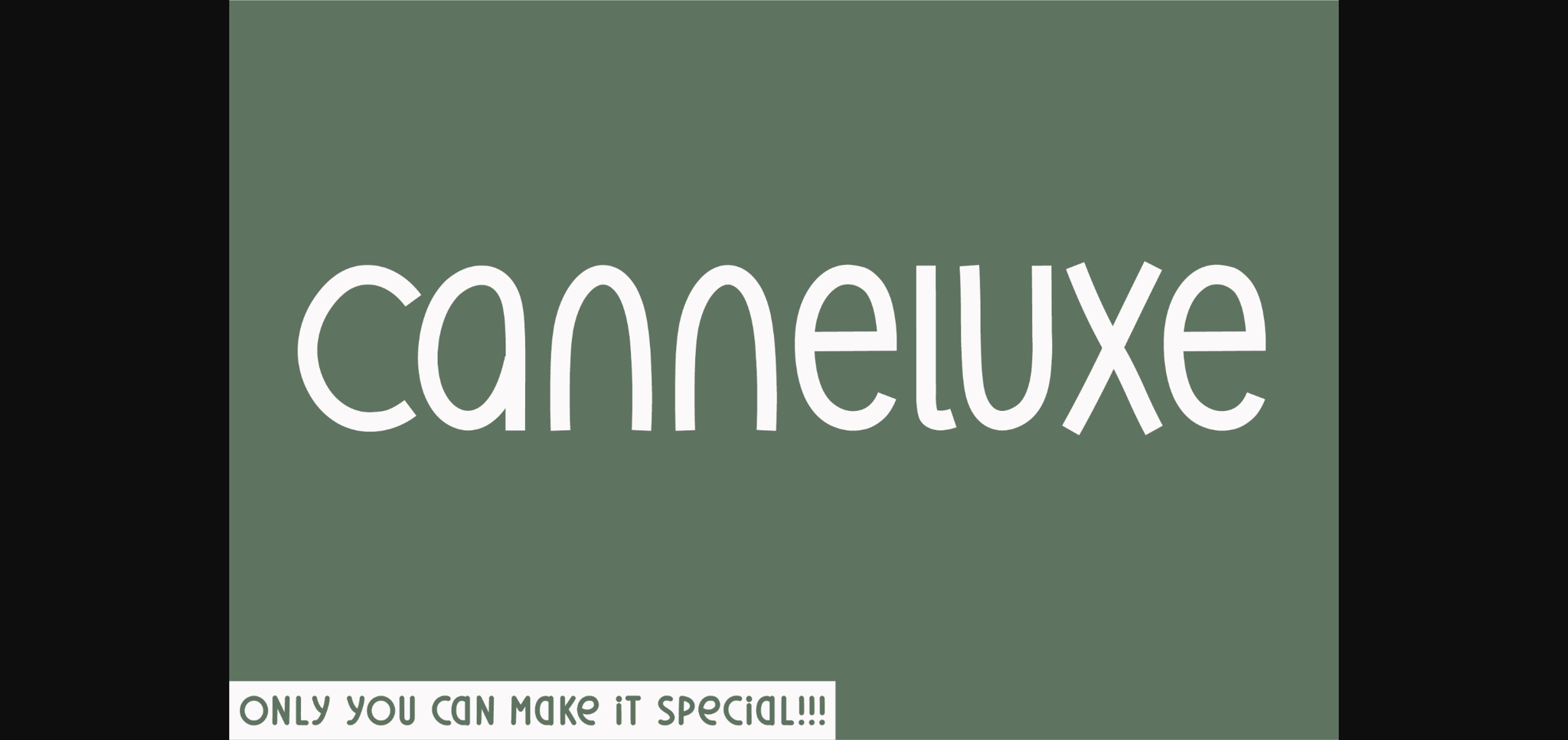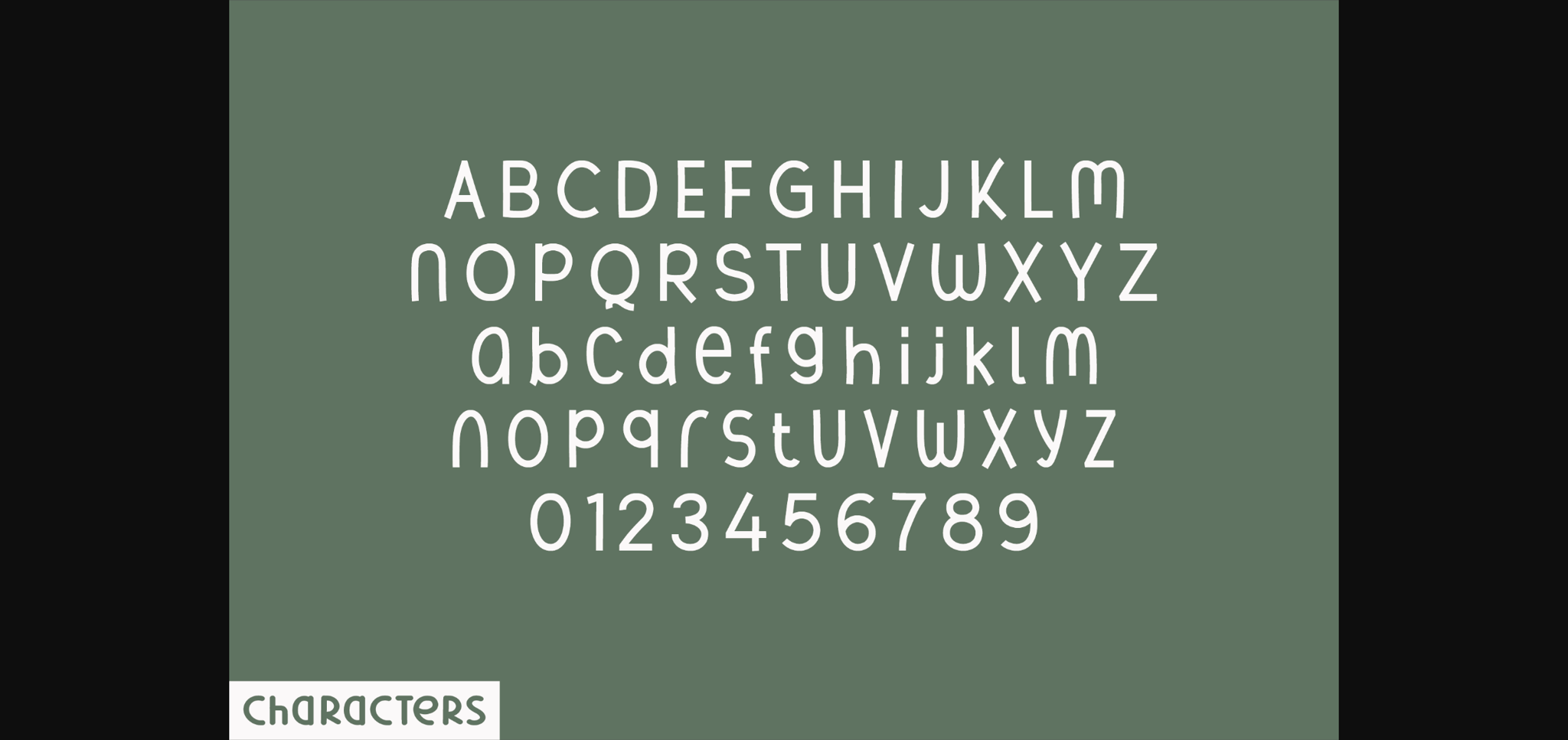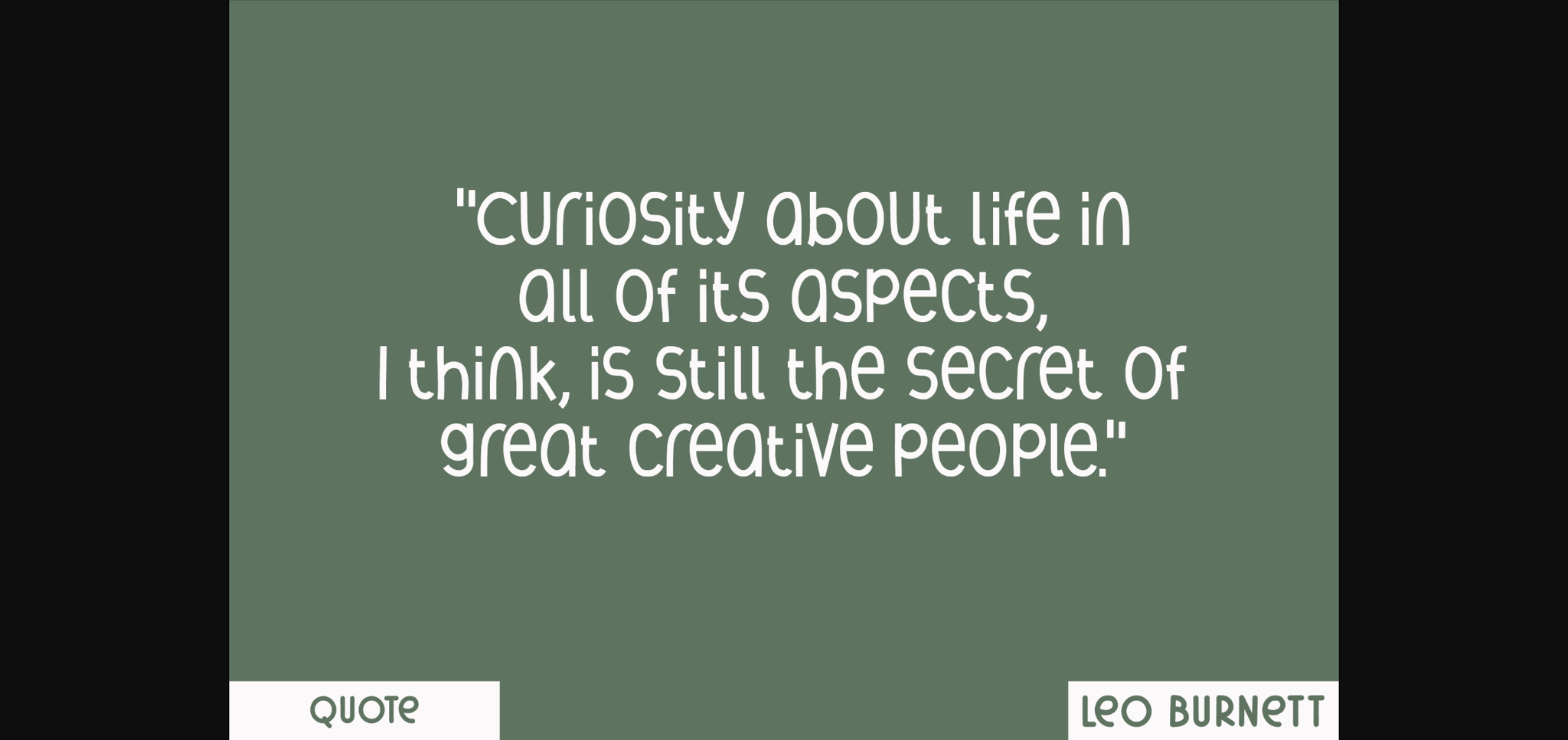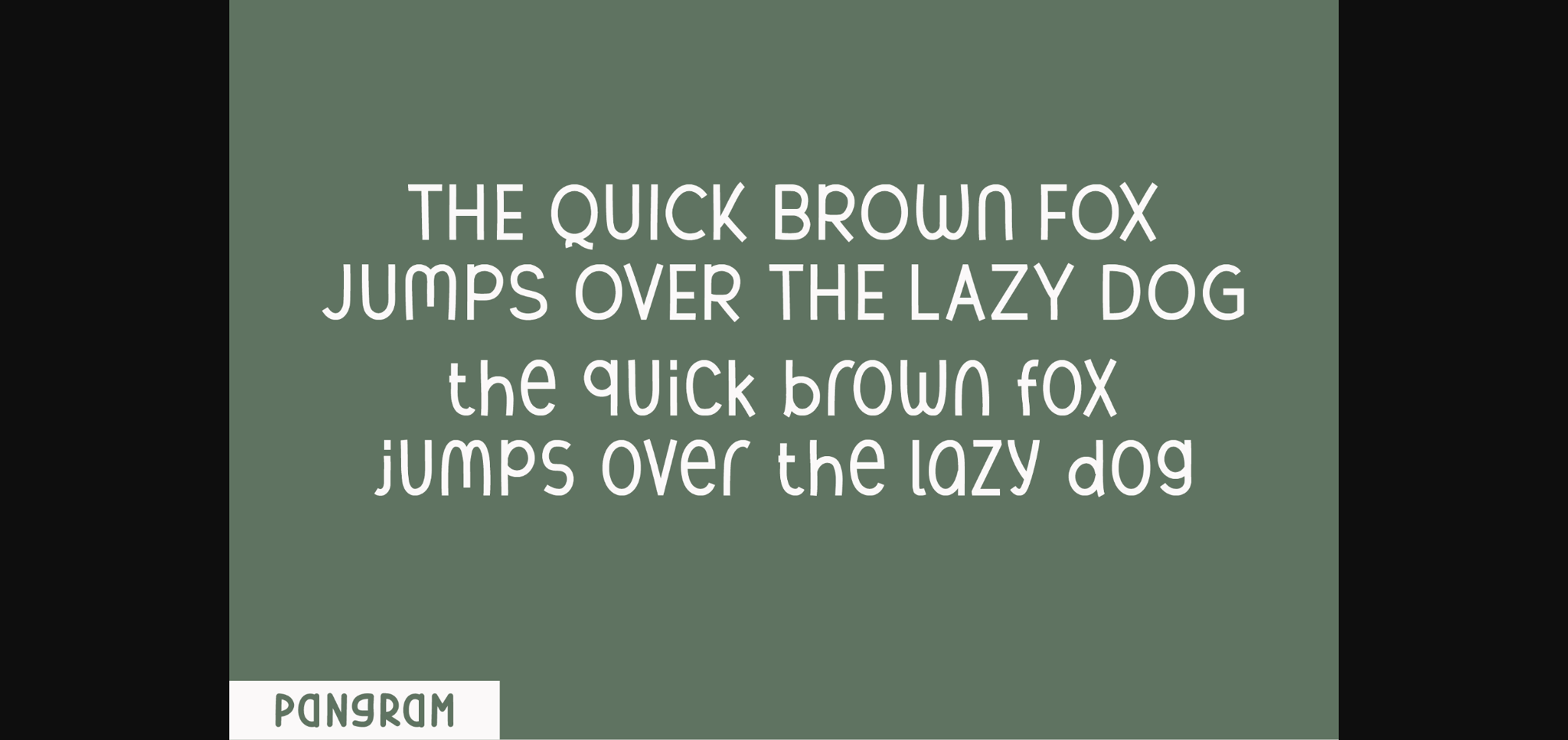
About Canneluxe Font
Canneluxe is a distinctive display font that masterfully blends a sans-serif typeface with a form that stands out from the rest. Each character in Canneluxe ends with a familiar shape, offering a balance between robust strength and singular uniqueness. With its powerful and extraordinary character shapes, this font is perfect for bold, daring designs seeking to convey an impactful and distinctive message.